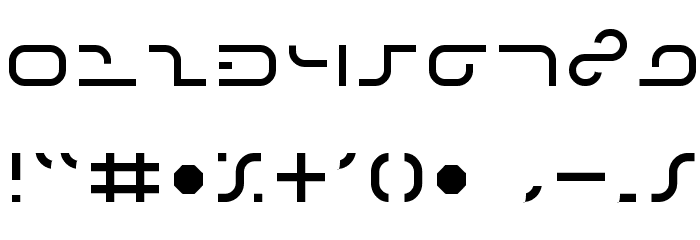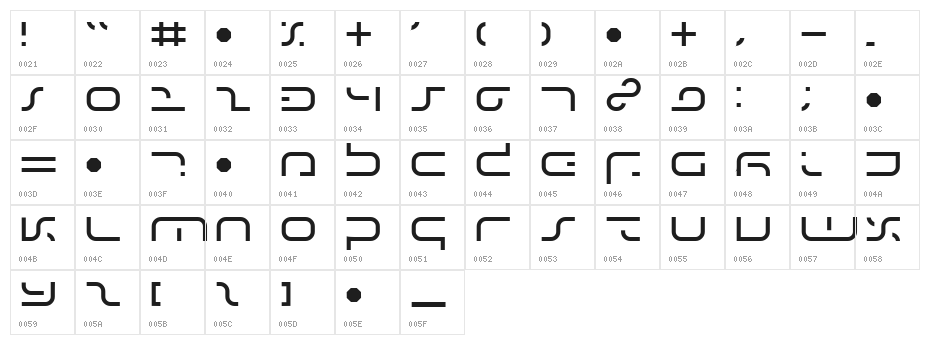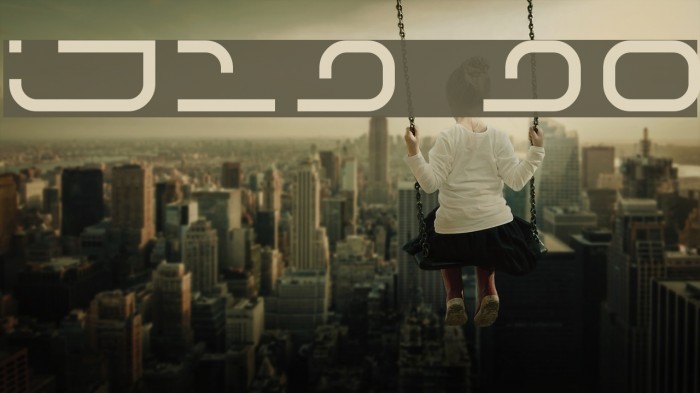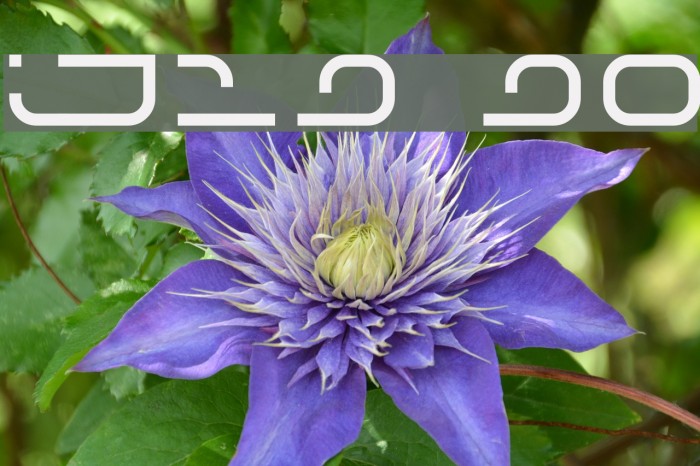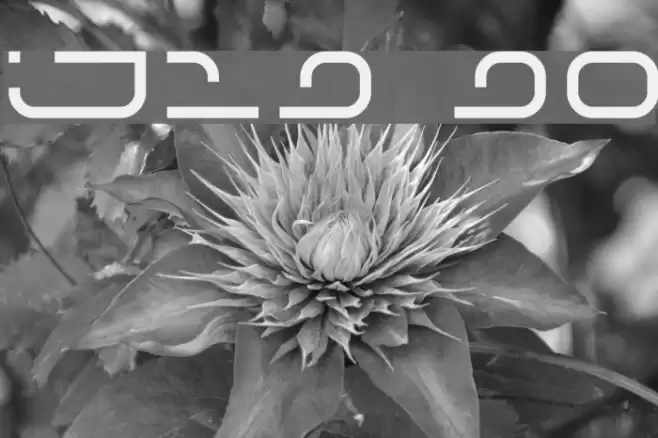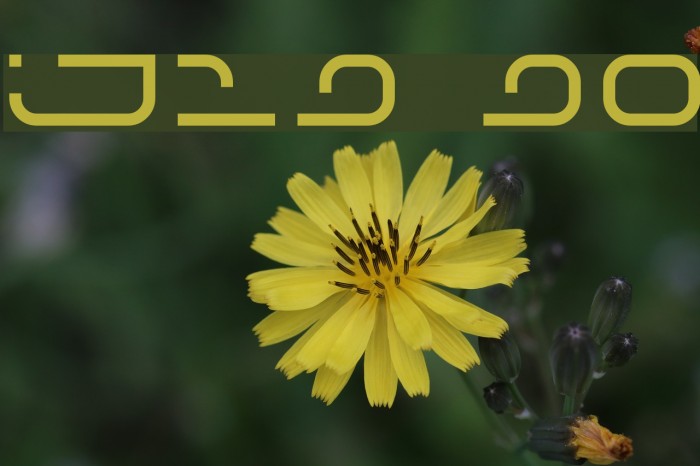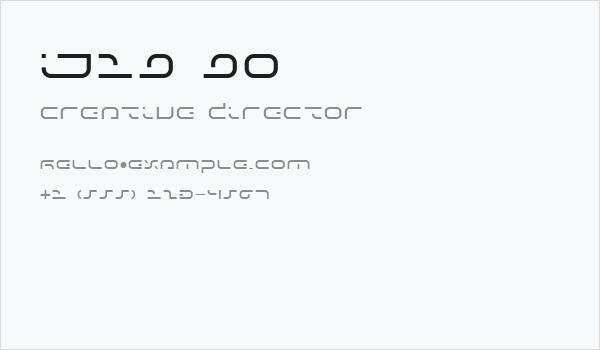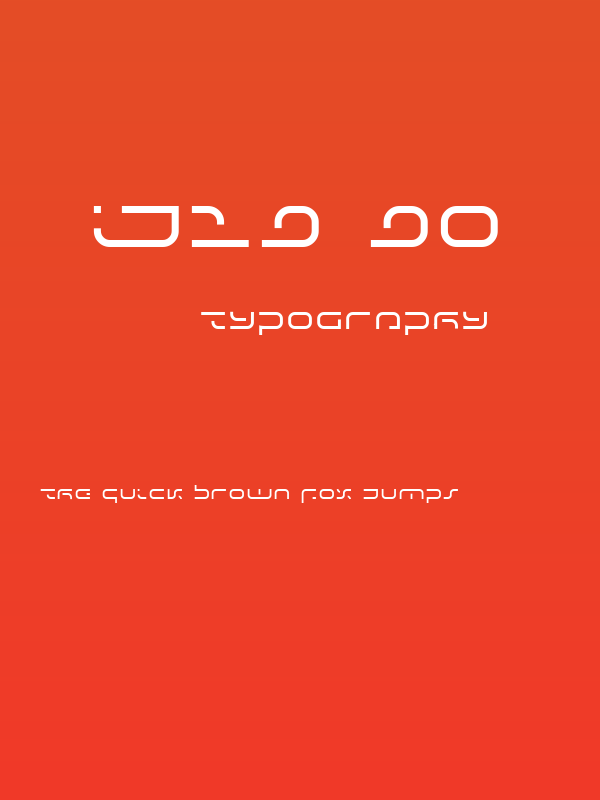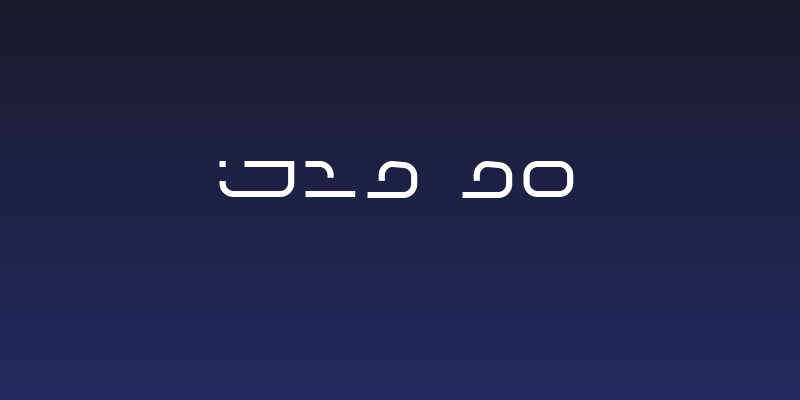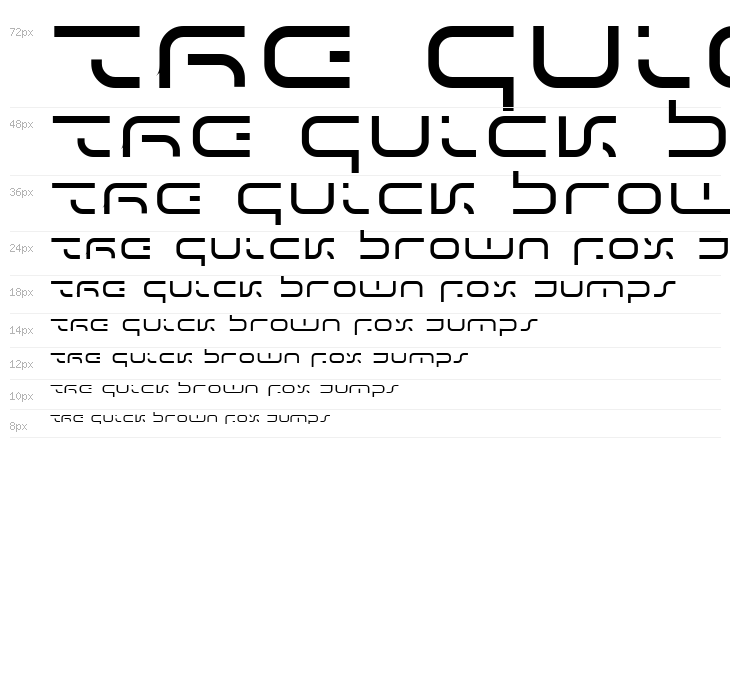
IJ19 90 Font
IJ19 90 Description
This font features a futuristic and geometric design, characterized by its clean lines and minimalistic appearance. The letters are constructed with a combination of straight lines and curves, creating a unique and modern aesthetic. The font has a consistent stroke width, giving it a uniform look. The characters are slightly condensed, which adds to its sleek and compact style. The special characters are designed to match the overall geometric theme, with a focus on simplicity and clarity. This font is well-suited for projects that require a contemporary and innovative touch.
| Use Case | Logos, Headlines, Digital interfaces |
| Proposed Projects | Ideal for technology branding, modern advertising, sci-fi themed designs, and digital interfaces. |